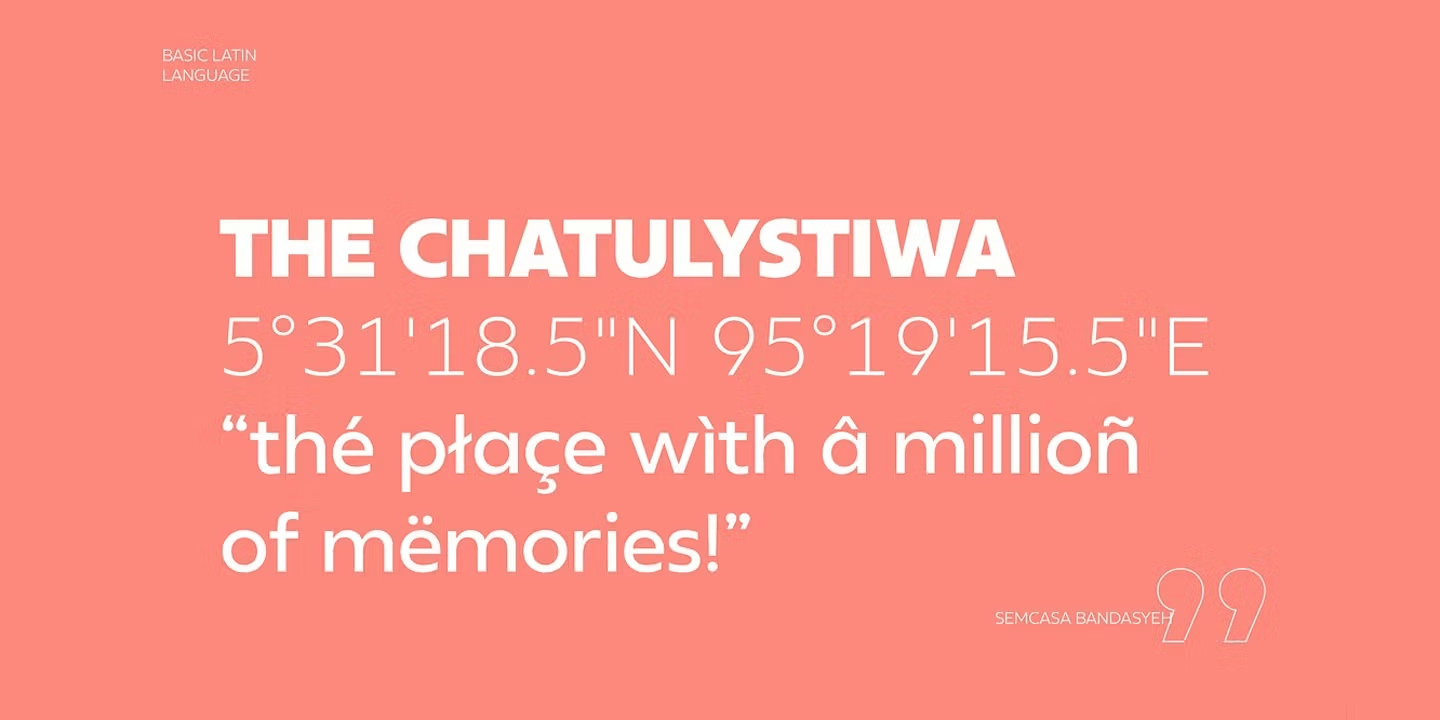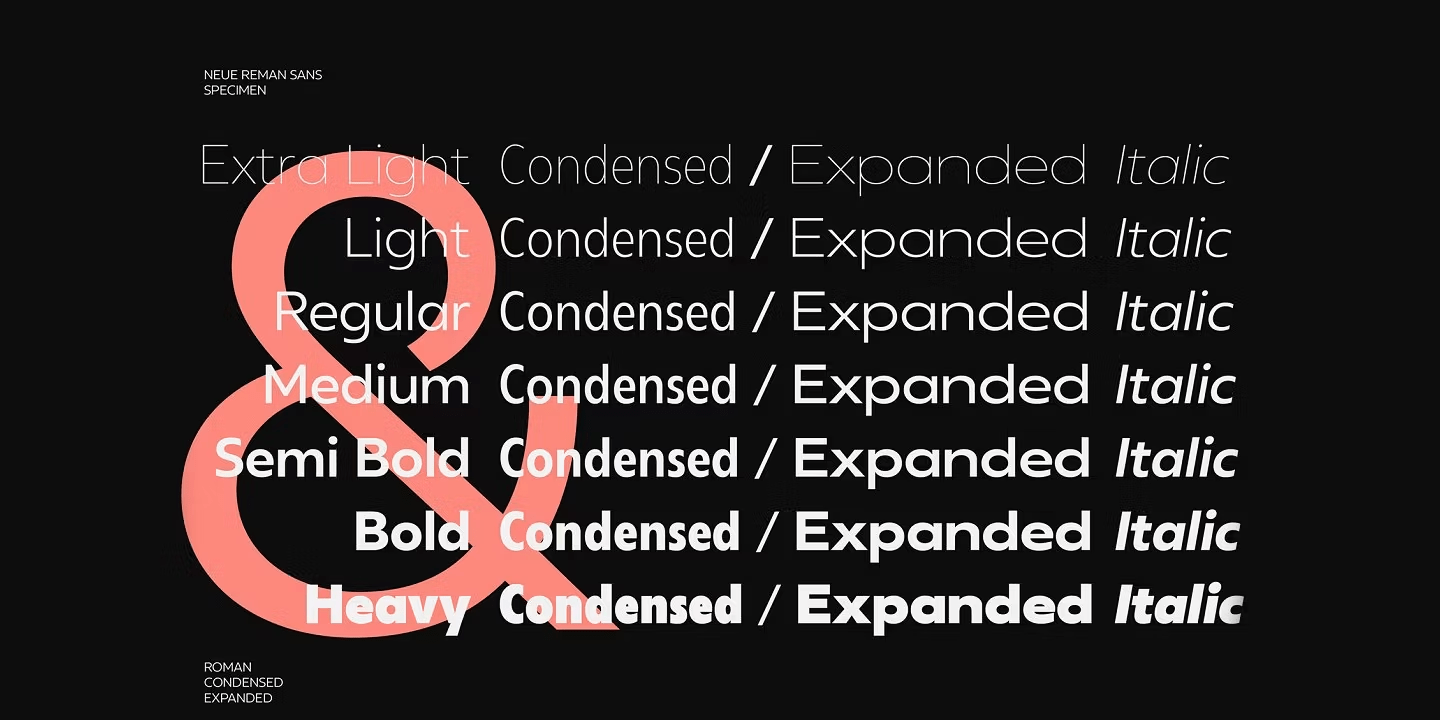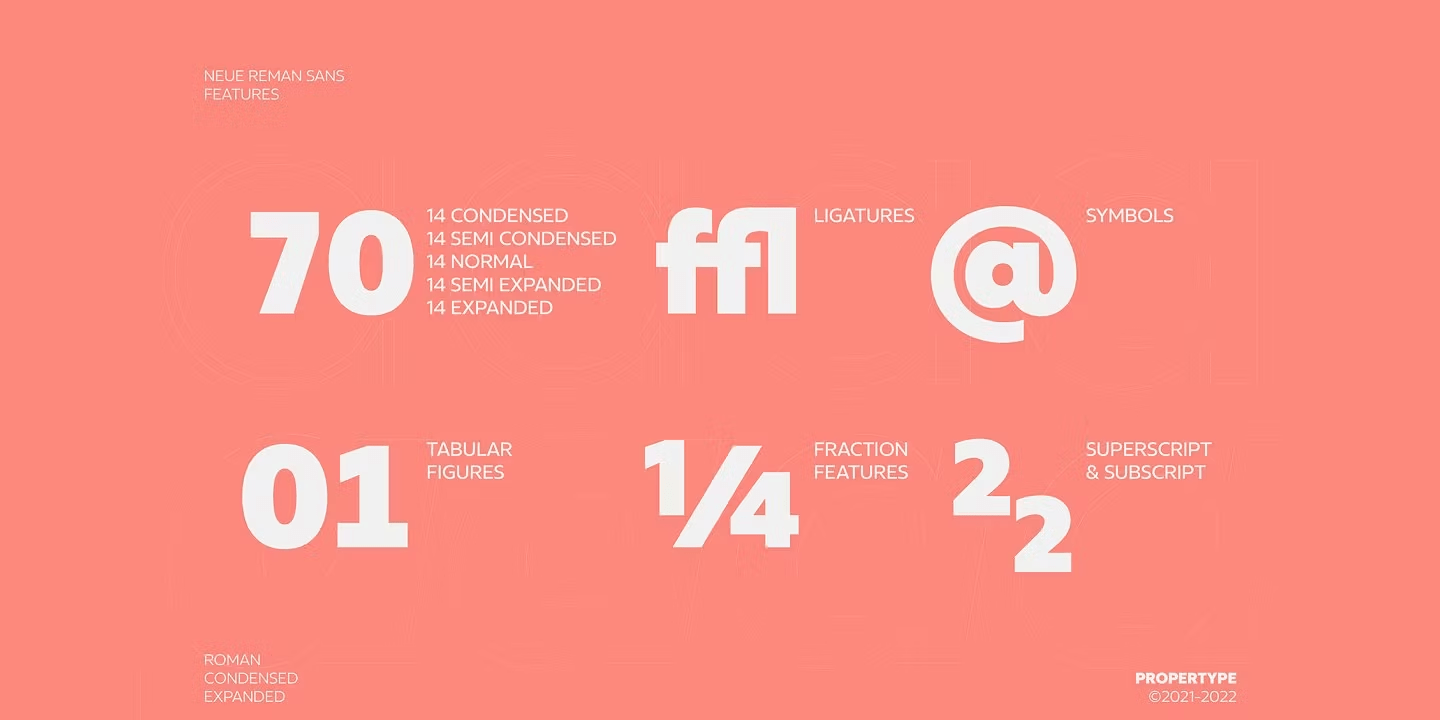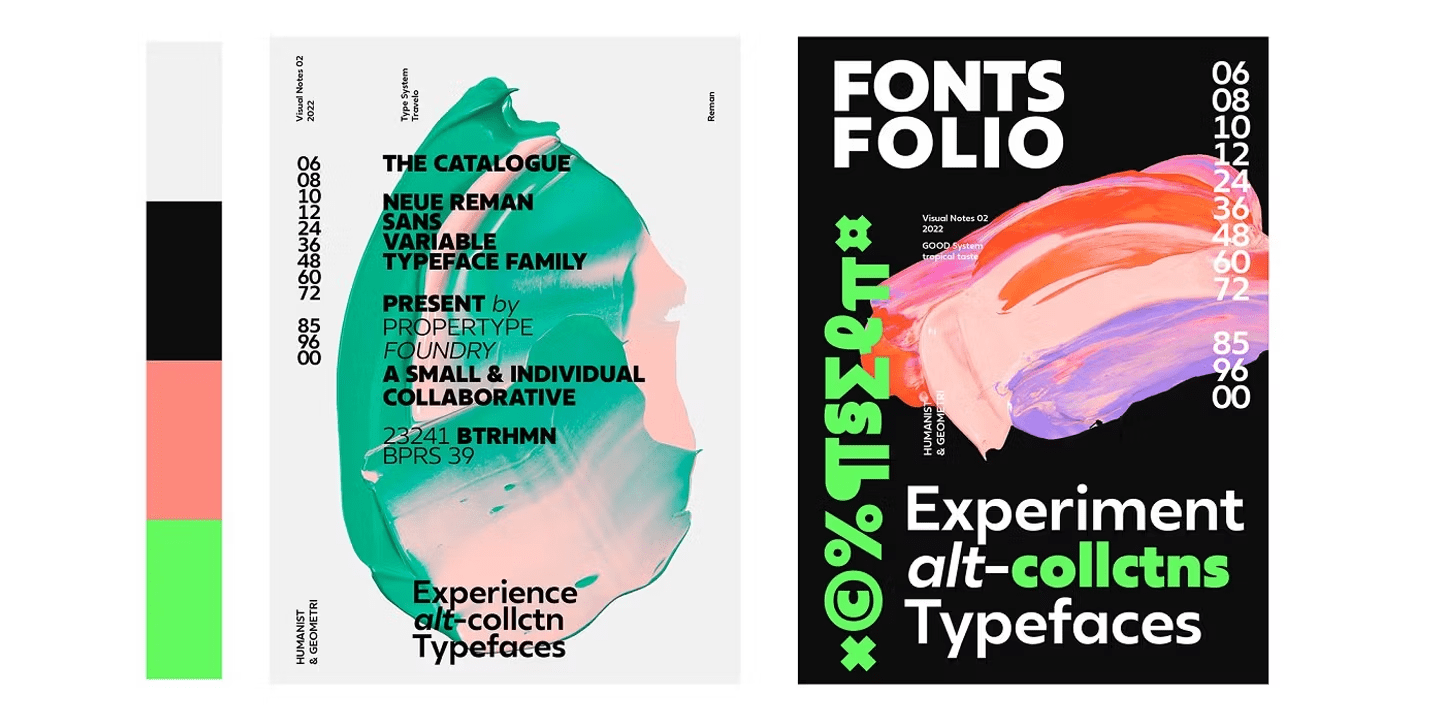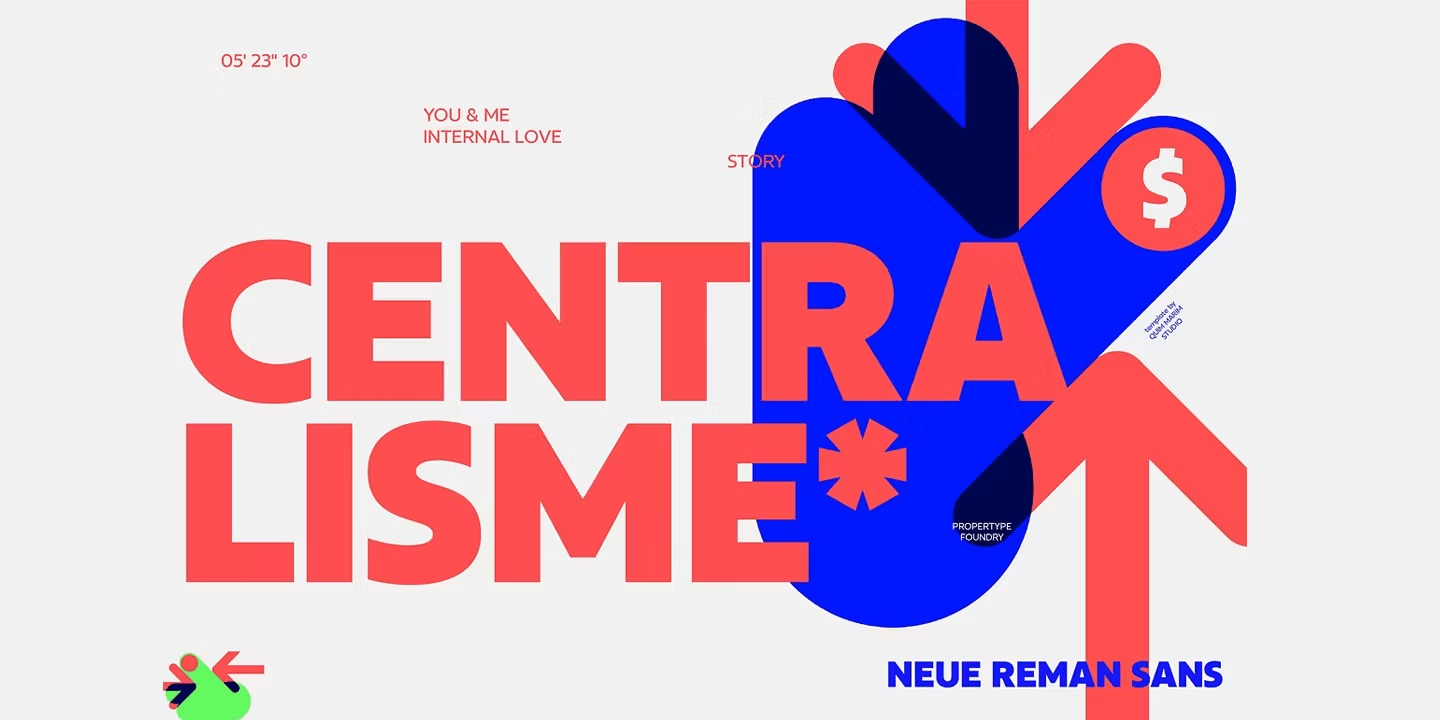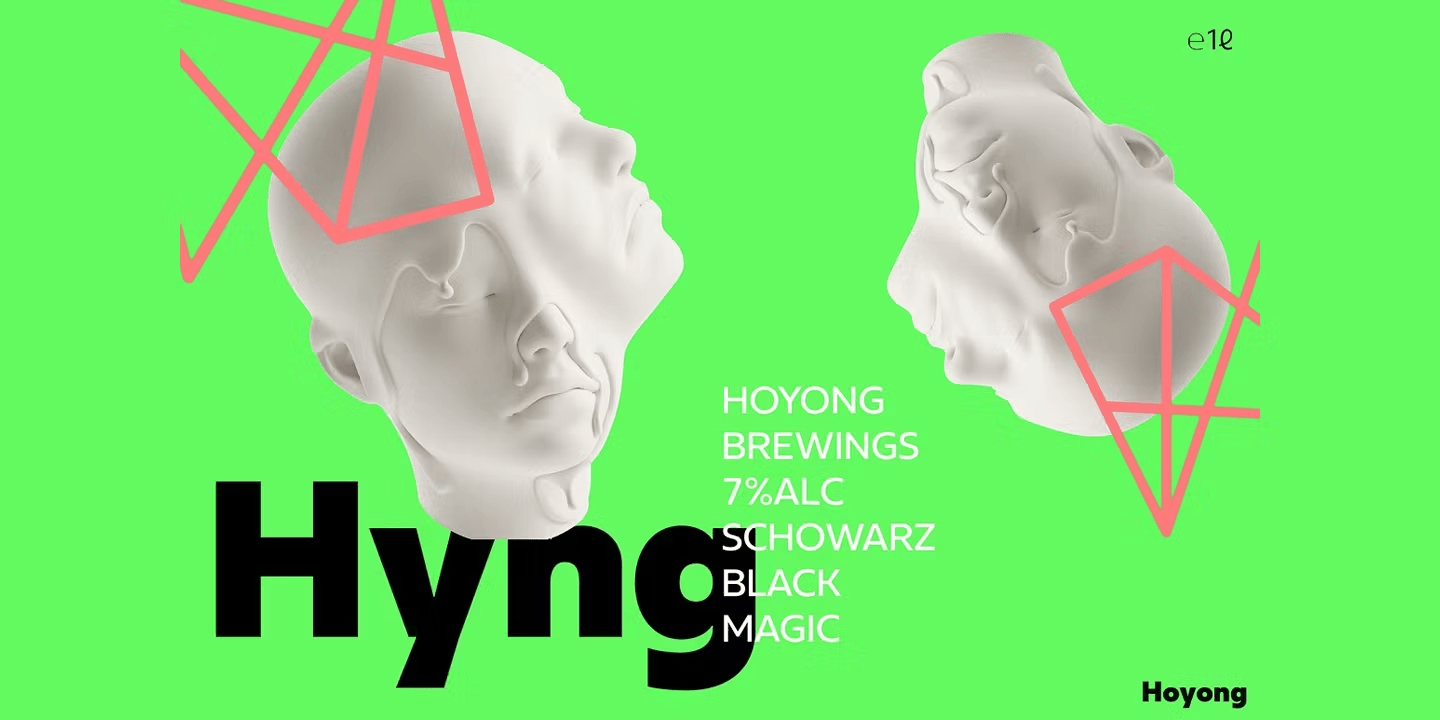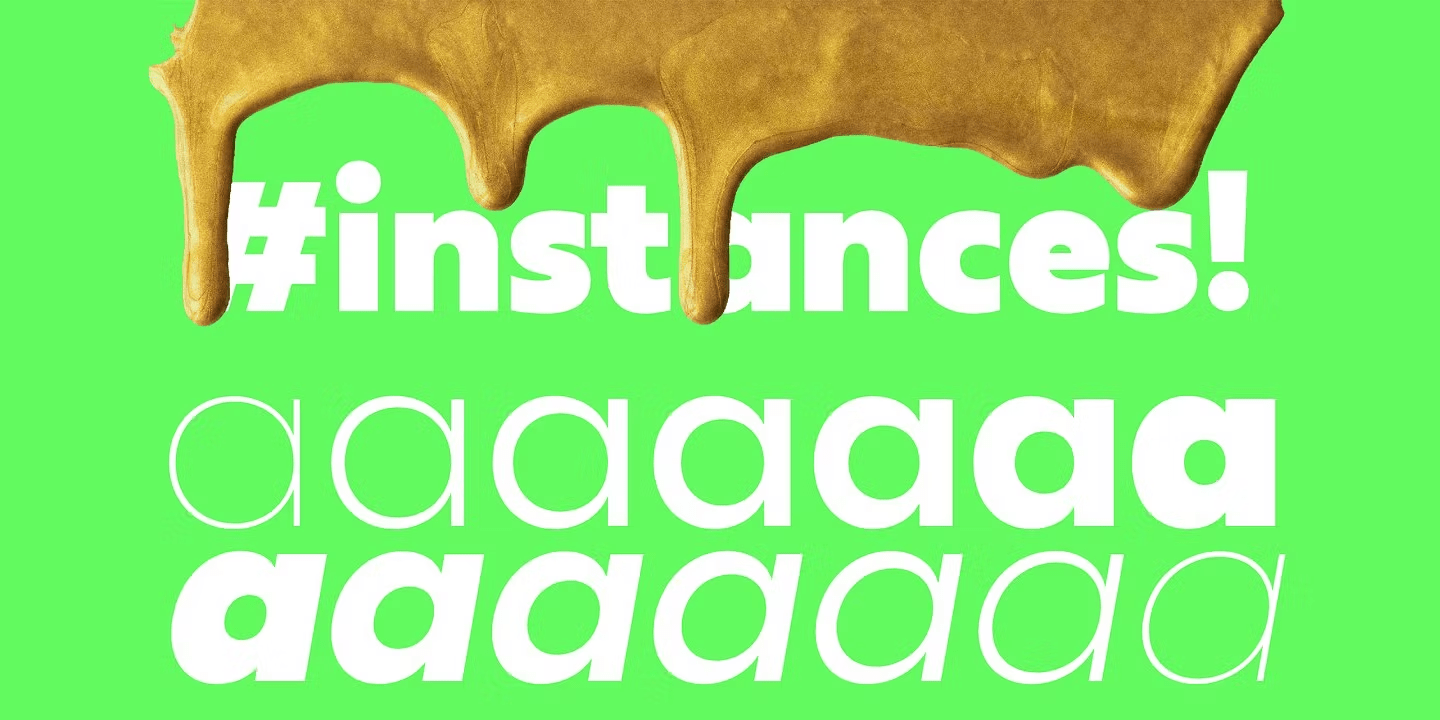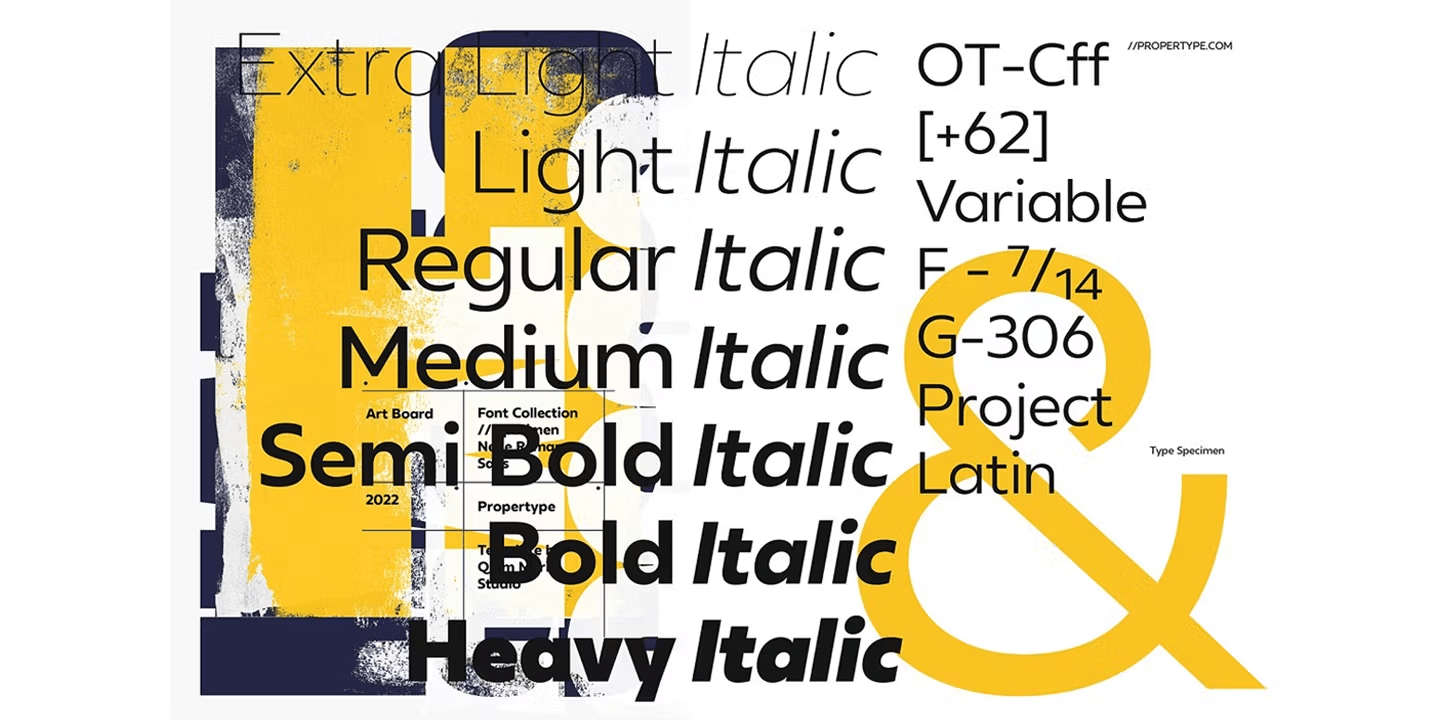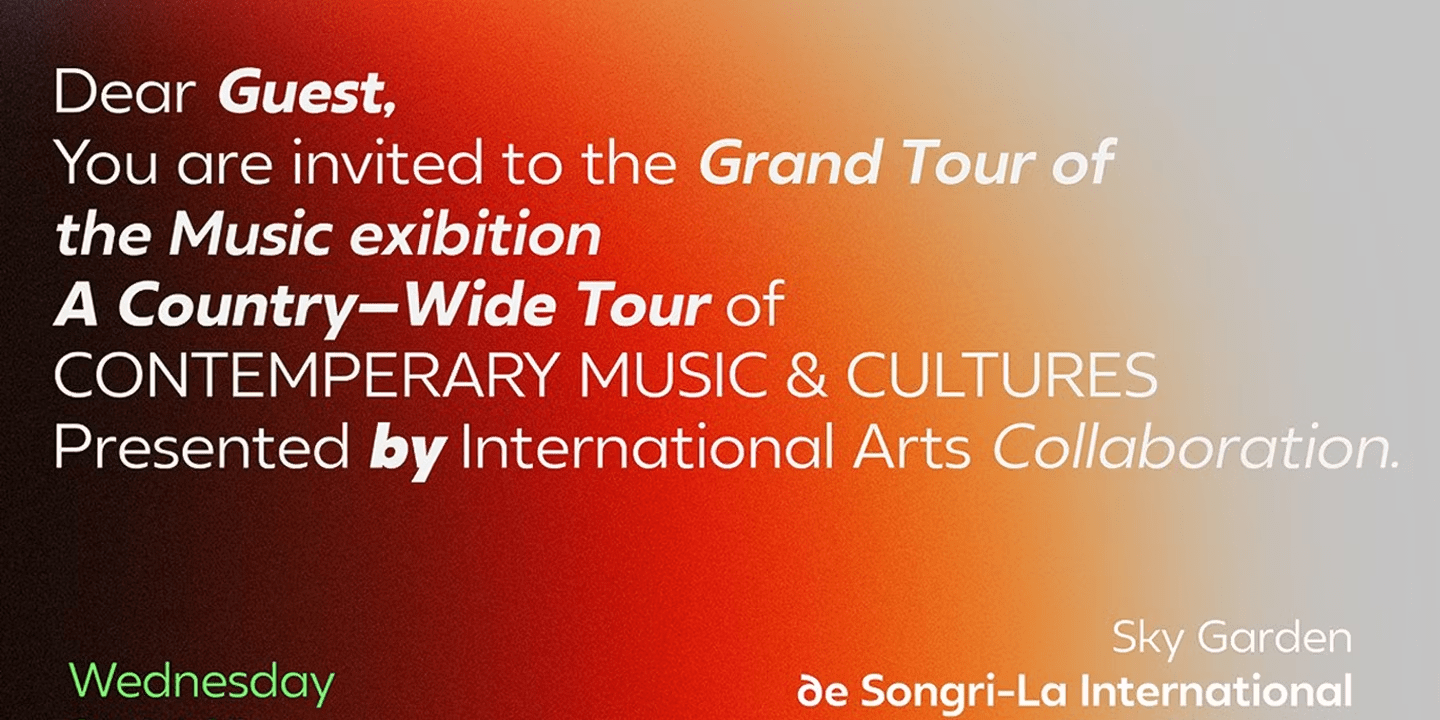
Neue Reman Sans
CONDENSED - SEMI EXPANDED - EXPANDED
It has 56 fonts style in total family + 1 variable styles.
It is a Roman, Humanist, Grotesk and Geometri sans serif family.
The family comes in 7 weights & 5 Width with matching italics + Variable Font File and includes multilingual latin characters.
Neue Reman Sans contains 306 glyphs - this is the first version of Neue Reman Family with standard ligatures and a variety of figures and fractions. We create Neue Reman typeface to use in multipurpose project such as on website, systems, printing, embedding, servers, screens, display, digital-ads, branding, logos, titles, headlines, teks, and everything else.